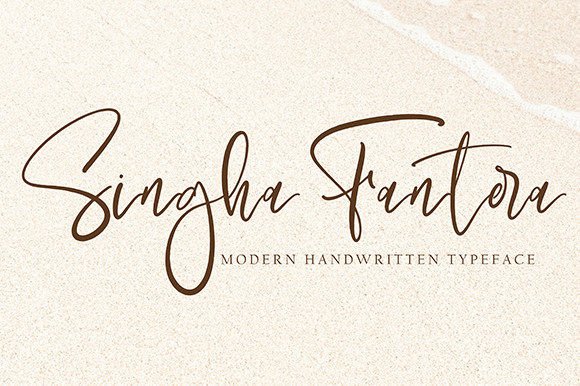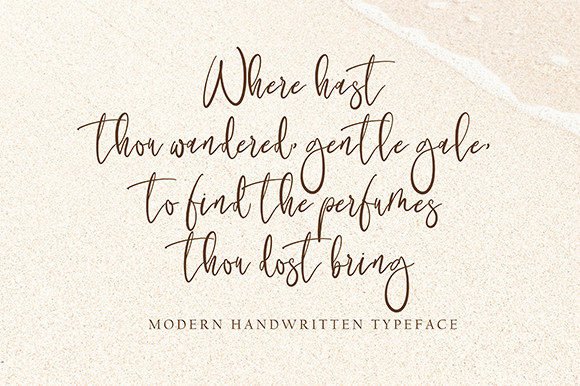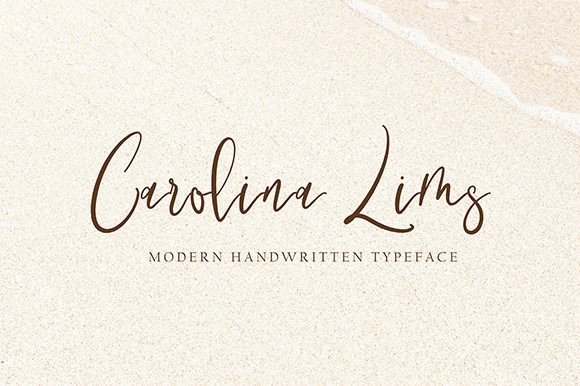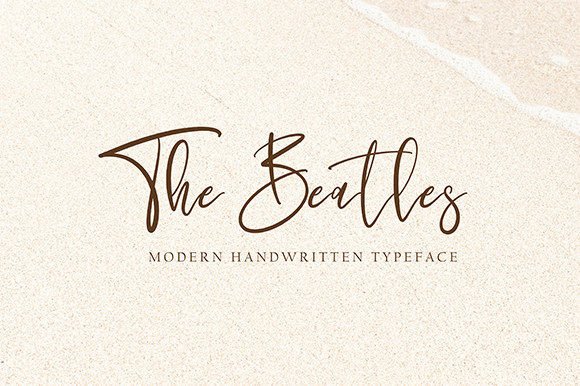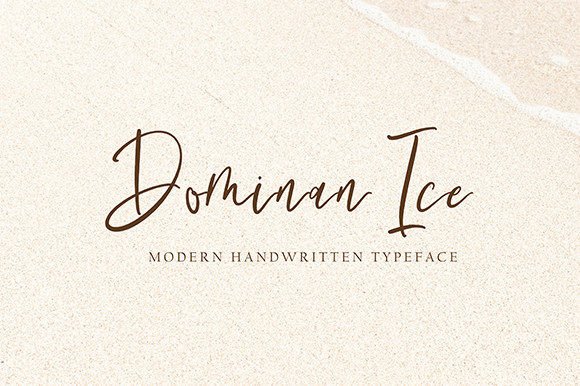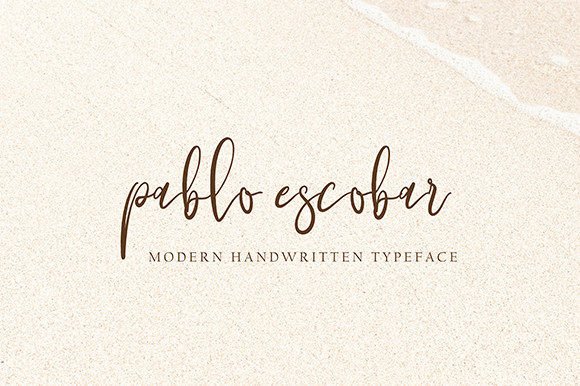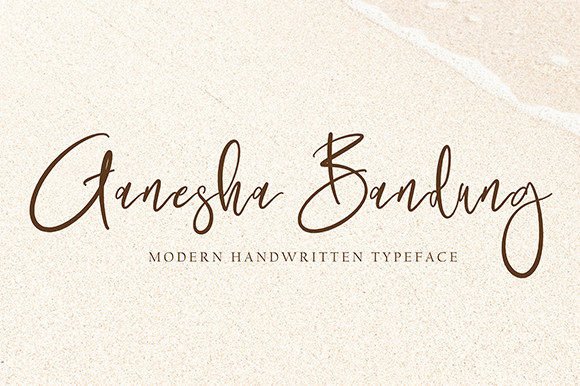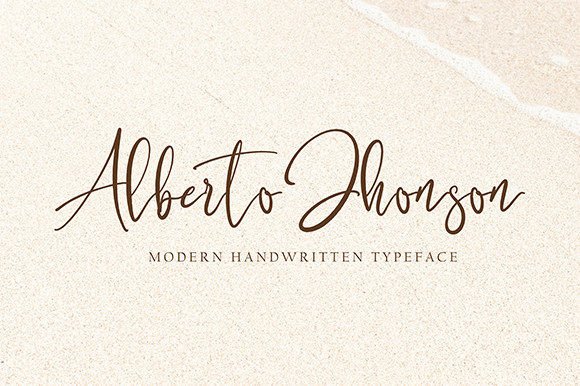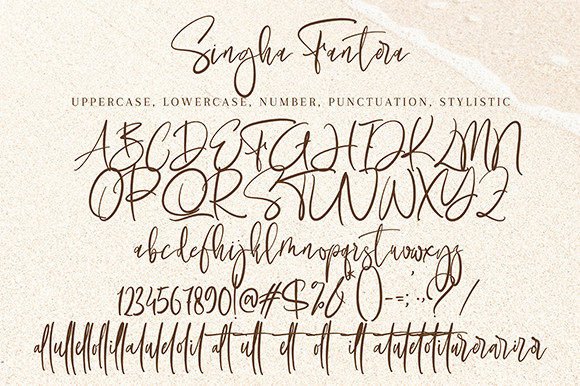
Singha Fantera Font
About Singha Fantera Font
“Singha Fantera” is a beautiful handwritten font that adds a touch of elegance and versatility to a wide array of creative projects. With its charming and unique design, this font is well-suited for various applications, including quotes, logos, blog headers, posters, branding, letters, invitations, stationery, and more.
The beauty of Singha Fantera lies in its carefully crafted letterforms, bringing a sense of sophistication to your text. Whether you’re working on digital designs or print materials, this font is designed to enhance the overall aesthetics of your projects.
Imagine using Singha Fantera for inspiring quotes, where its beautiful and handwritten style elevates the impact of meaningful words. Picture it in logos and branding, adding a touch of elegance to a brand’s visual identity. Whether applied to blog headers, posters, or stationery, Singha Fantera is crafted to be a font that enriches the visual appeal of your creations.
In summary, Singha Fantera is more than just a font; it’s a beautiful and versatile typeface that serves as a creative tool for a multitude of projects. Let it be the choice that brings an element of beauty and sophistication to your designs, making them stand out with a timeless and refined charm.